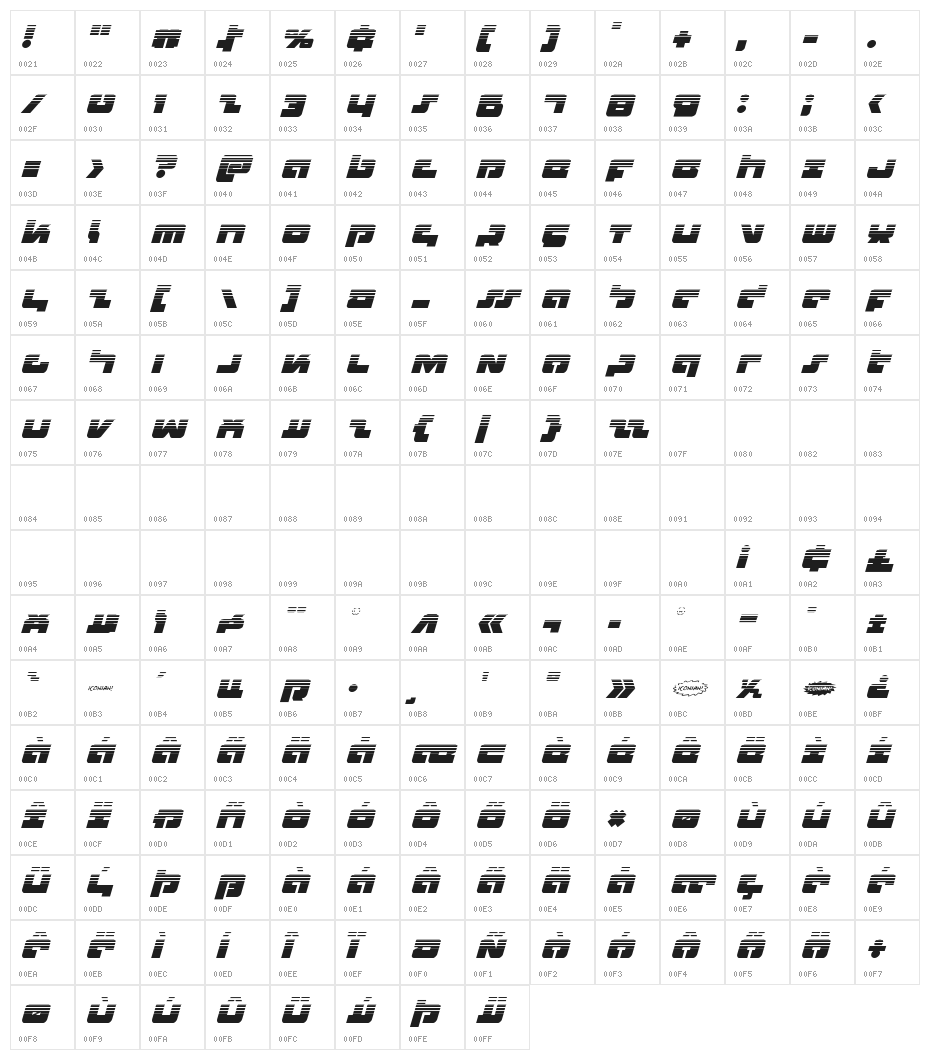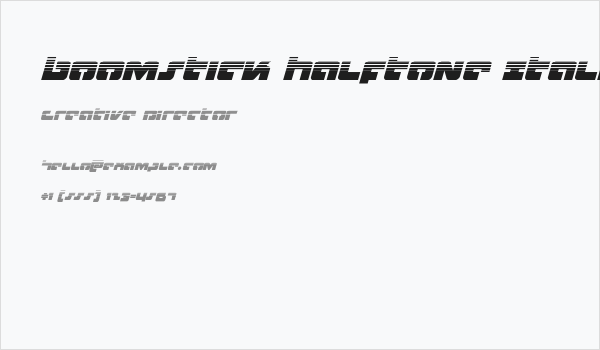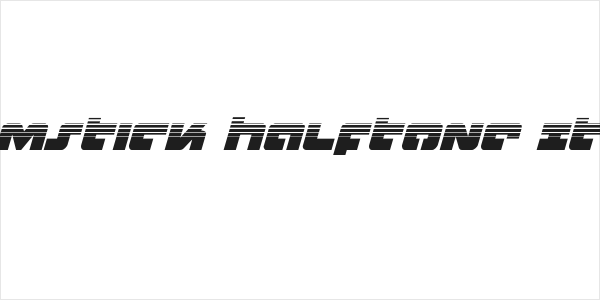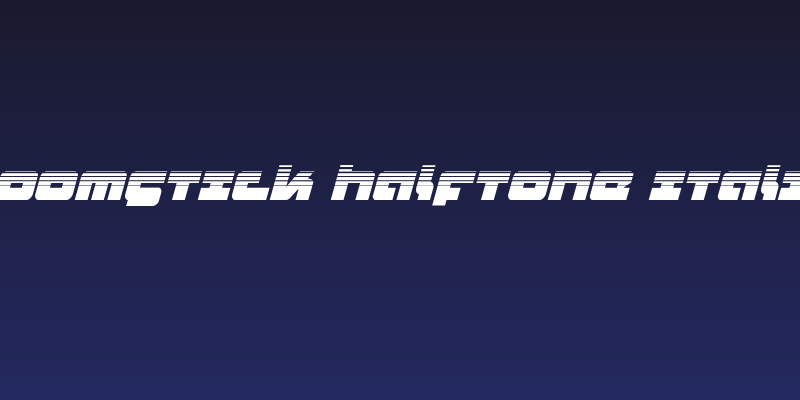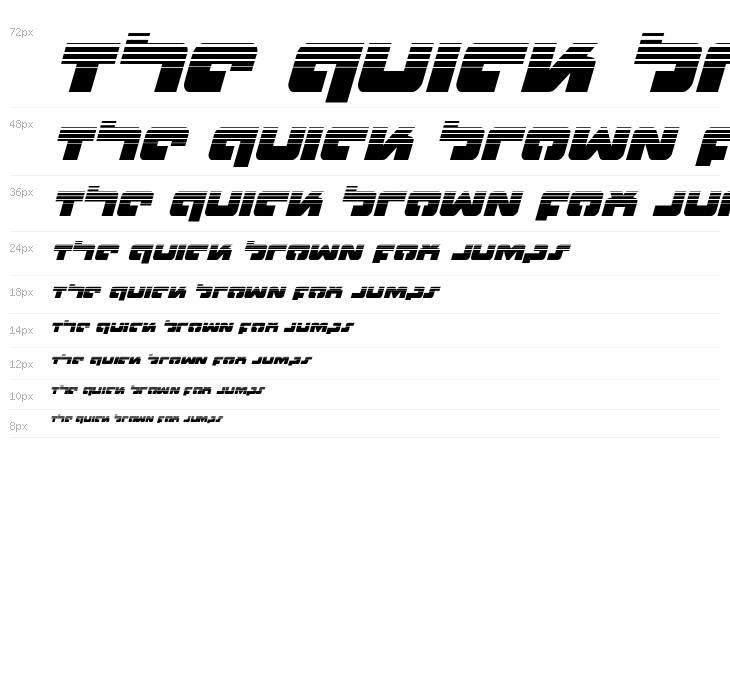
Boomstick Halftone Italic Font
Boomstick Halftone Italic Description
This font features a bold, futuristic design with a distinct halftone effect that gives it a dynamic and energetic appearance. The characters are italicized, adding a sense of motion and speed. The use of horizontal lines within each character creates a unique texture that enhances its modern and edgy style. The font is highly stylized, making it ideal for projects that require a strong visual impact. Its geometric shapes and sharp angles contribute to its contemporary aesthetic, while the consistent use of the halftone pattern across all characters ensures a cohesive look.